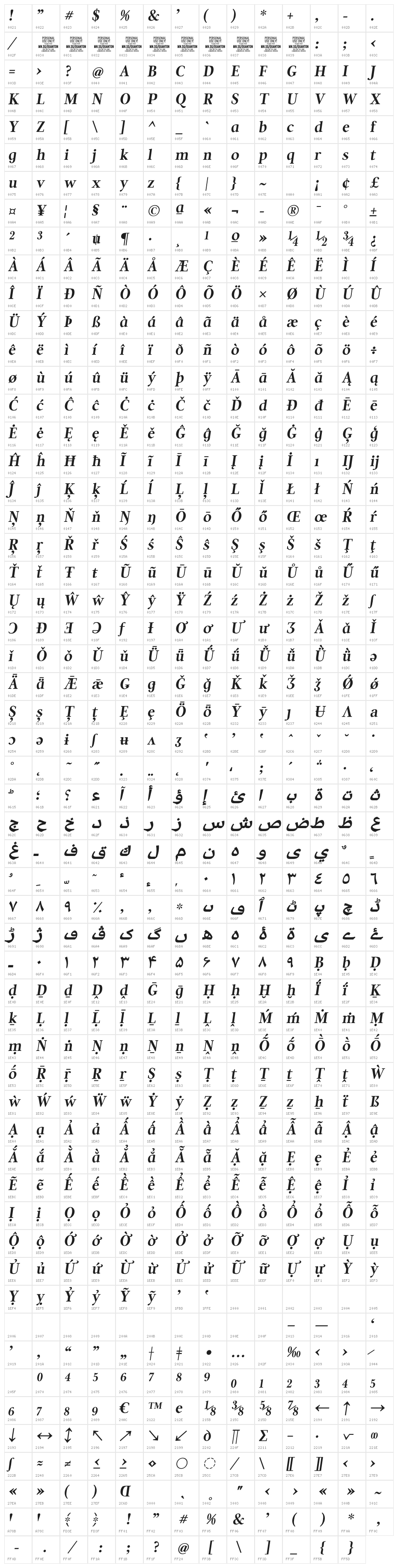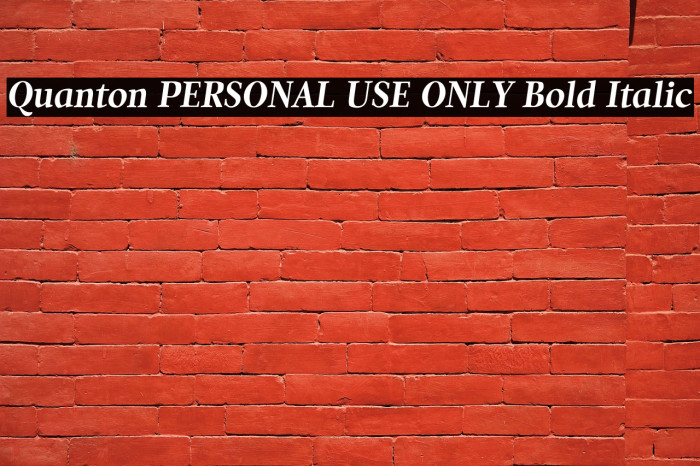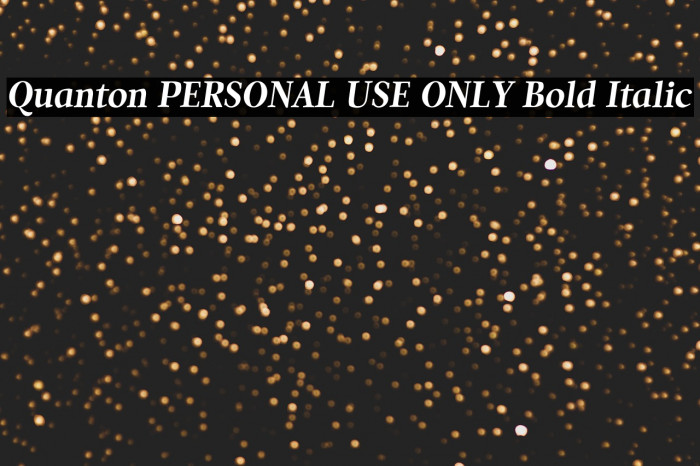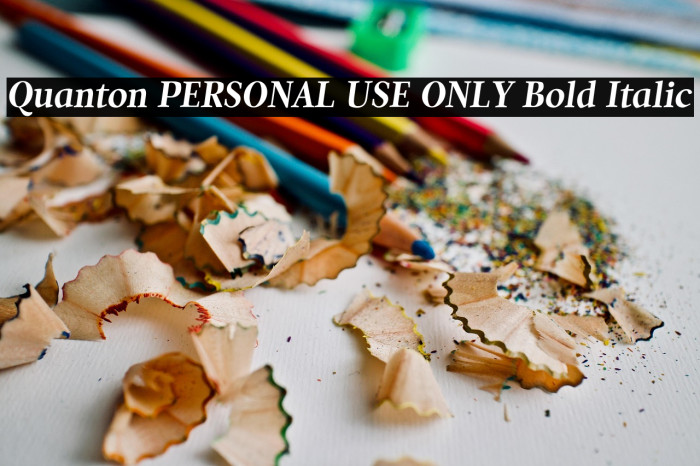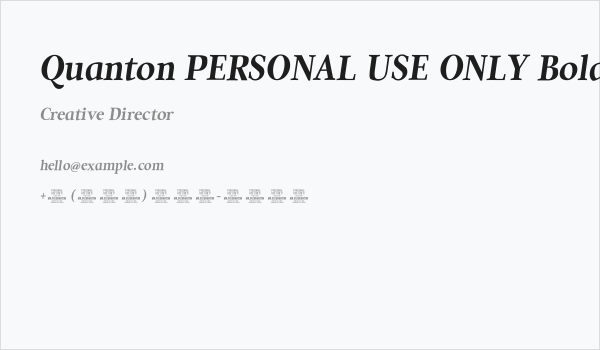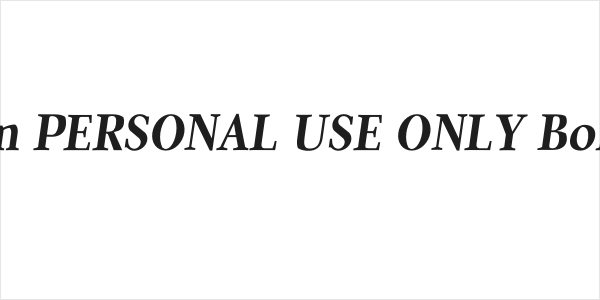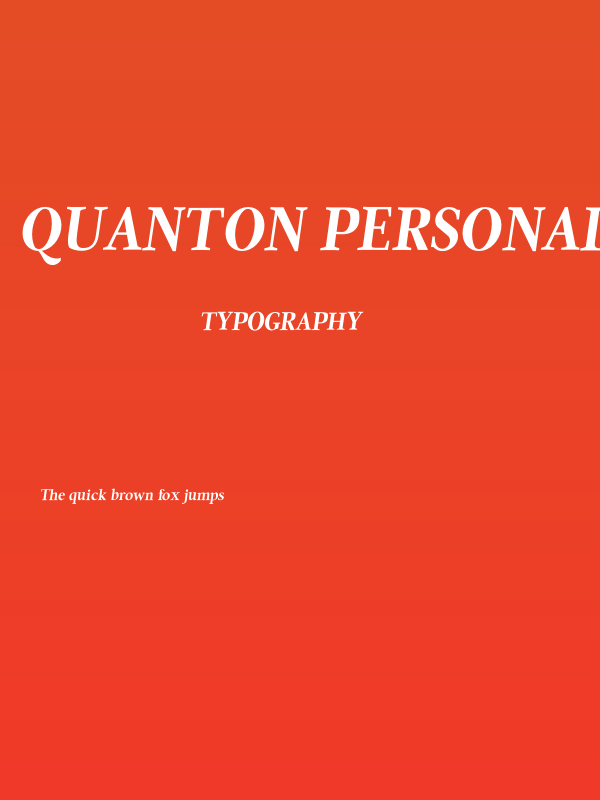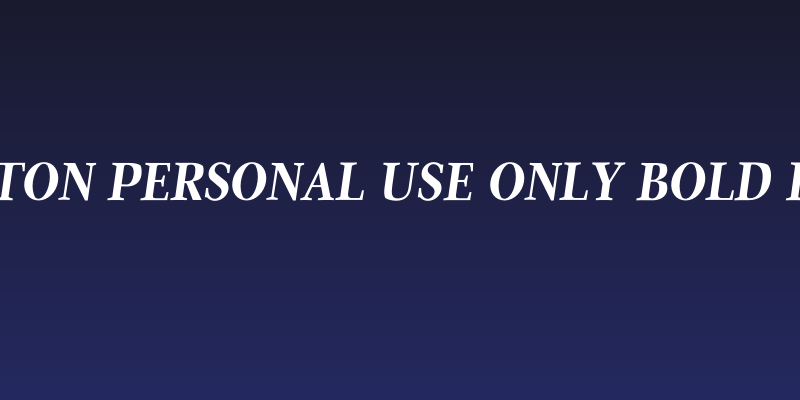
Quanton PERSONAL USE ONLY Bold Italic Font
Quanton PERSONAL USE ONLY Bold Italic Description
This font features a bold and italic style, offering a dynamic and assertive appearance. The uppercase letters are elegantly slanted, providing a sense of movement and sophistication. The lowercase letters maintain a consistent slant, complementing the uppercase with a cohesive look. The numerals are clear and bold, ensuring readability. Special characters are designed with the same bold and italic characteristics, making them stand out effectively. The overall design is modern yet classic, suitable for a variety of applications where emphasis and style are needed.
| Proposed Projects | Ideal for headlines, branding, advertising, and editorial design where a bold statement is required. |